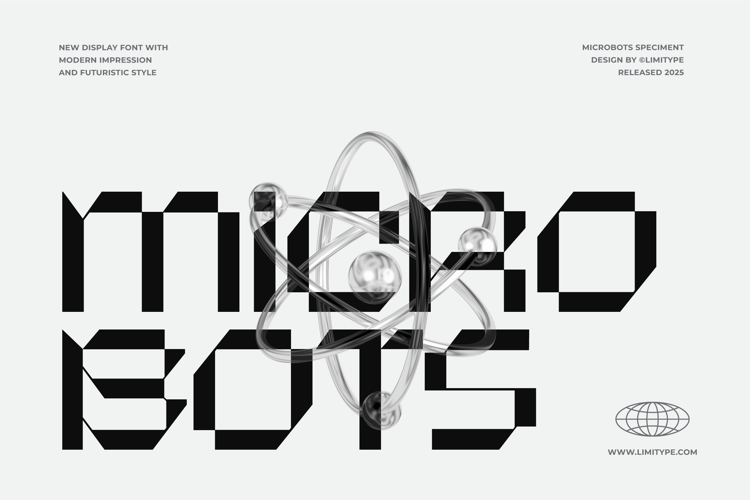
Microbots Font
Microbots is a futuristic pixel style font with sharp, angular edges that delivers a strong and unique visual identity. Perfect for titles, posters, logos, and various design projects that aim to appear bold and modern.